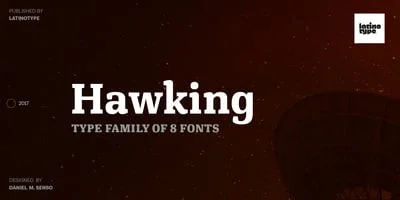
Hawking Font
Hawking Font is ideal for scientific design projects including physics research institutions, astronomy observatories, science museums, theoretical physics departments, scientific publication houses, space exploration organizations, cosmology research centers, and intellectual discovery campaigns. This brilliant typeface works perfectly for scientific conferences, research universities, science education programs, theoretical physics journals, and projects that celebrate scientific excellence and the pursuit of knowledge through rigorous academic research.
What makes Hawking Font exciting is its intellectual scientific character that perfectly captures the essence of theoretical physics and cosmic exploration. The font features sophisticated letterforms with scientific precision that reflects the mathematical beauty and theoretical elegance of advanced physics research. Its scholarly design elements embody the spirit of scientific inquiry and intellectual brilliance, making it perfect for projects that need to convey intelligence, discovery, and connection to scientific heritage. The carefully crafted academic proportions create an atmosphere of scientific sophistication and intellectual authenticity.
Hawking Font comes in multiple family variations including theoretical, scientific, academic, and cosmic styles. Each weight maintains the distinctive intellectual character while offering different levels of scientific intensity and academic presence. The font family includes scientific alternates, theoretical ligatures, and academic variations that provide designers with comprehensive options for creating truly brilliant and scientifically authentic typographic compositions that celebrate intellectual excellence.
Whether you're designing scientific branding, creating academic marketing materials, or developing research promotional graphics, Hawking Font provides the perfect typographic foundation for projects that celebrate scientific excellence and intellectual sophistication. This remarkable typeface transforms ordinary text into compelling expressions of scientific wisdom and theoretical brilliance. Download this brilliant font today and theorize your design projects with the scientific authenticity and intellectual elegance that captures the essential spirit of physics research and cosmic discovery.